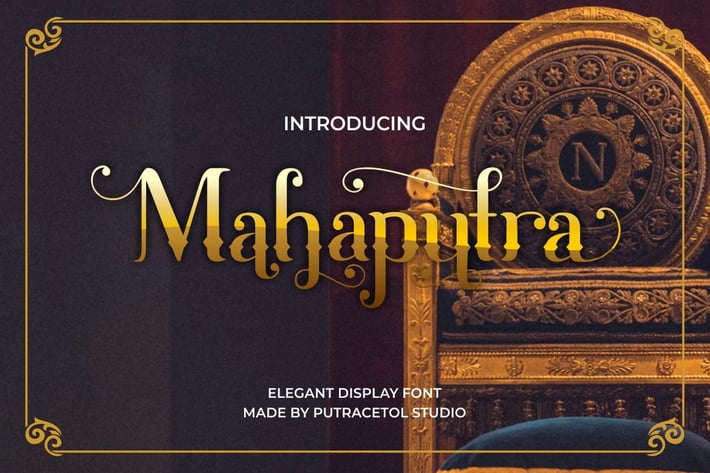
Mahaputra - Elegant Display Font
MAHAPUTRA
Introducing MAHAPUTRA !! A Vintage Display Typeface. Classic, Elegant , Unique and Luxury merge into one.
MAHAPUTRA is great for any kind of display purpose from logos, Tshirt, apparel, quote, handwritten quotes, product packaging, tittle header, poster, merchandise, social media, labels, branding & greeting cards.